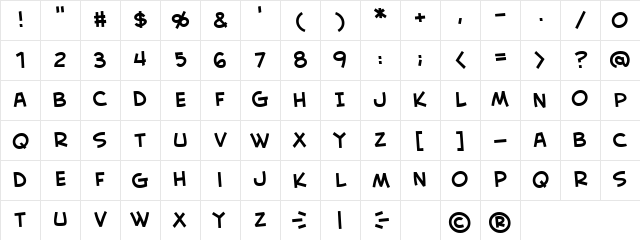
CreativeBlock BB Regular Free Font
CreativeBlock BB Regular
Design Context for CreativeBlock BB
CreativeBlock BB is a composed and adaptable typeface that performs quietly and consistently across a wide range of design contexts.
Pro Tip: Use CreativeBlock BB in both headline and body roles to test its range before committing to a single application.